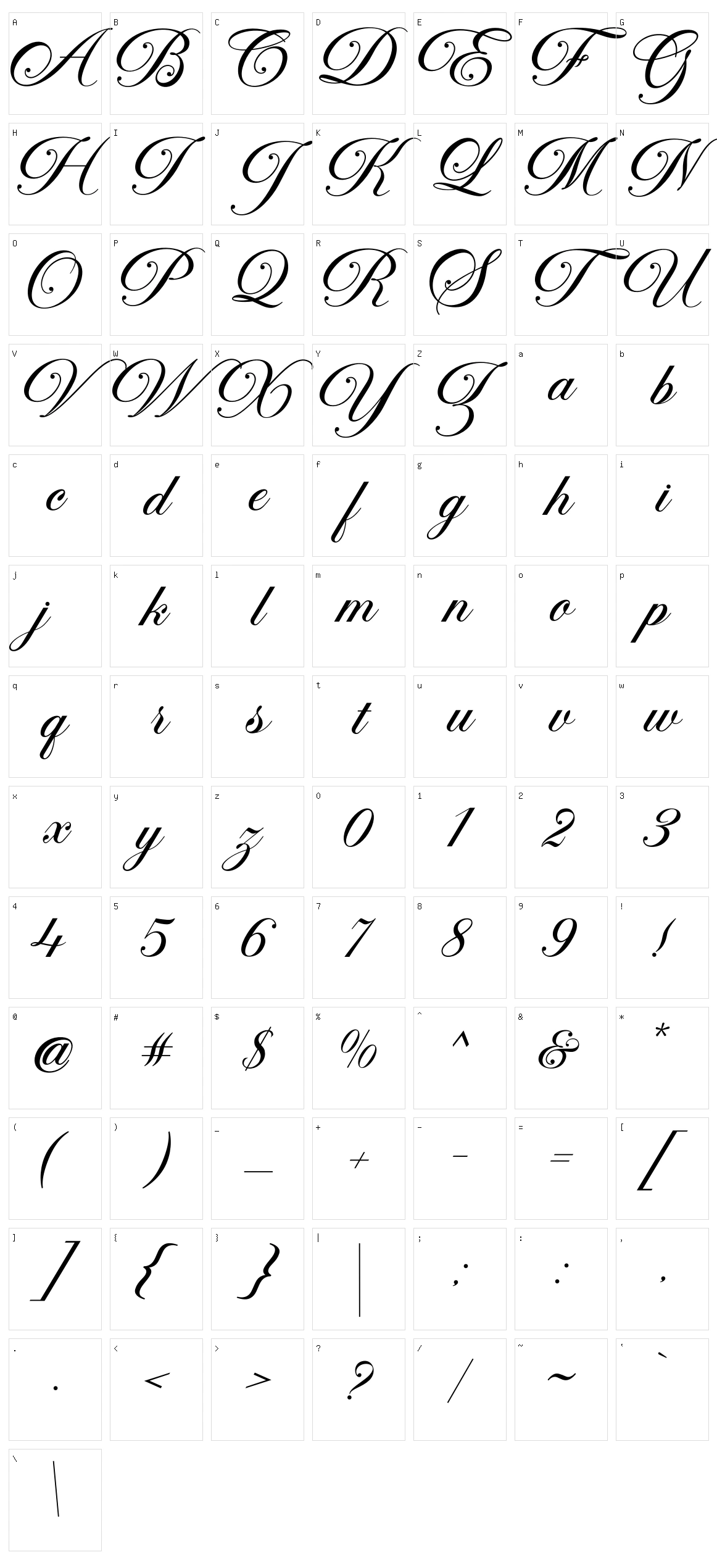
Tempting Script is one of the Elegant script fonts that comes with a very beautiful character change, a kind of classic copper decorative script with a modern touch, designed with high detail to present an elegant style.